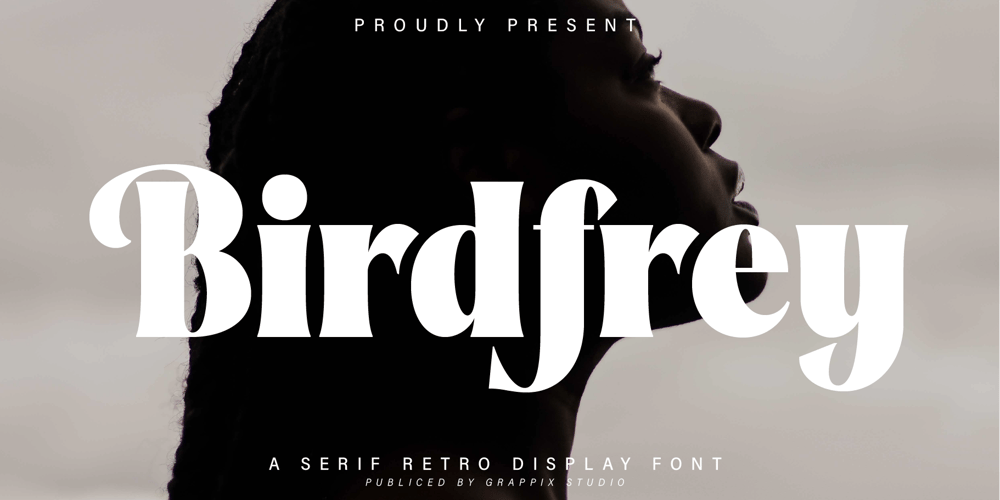
Birdfrey
Birdfrey font
Birdfrey Font Family was designed by Muhammad Zainudin and published by Grappix Studio. Birdfrey contains 1 styles and family package options. More information about this FontIntroducing our new modern serif retro bold display font “Birdfrey”Birdfrey is a modern serif font with a fresh and beautiful look. It has a modern and vintage look. It has extra glyphs to give more options for crafters in designing. Swirly extras will make it look classy and elegant.Birdfrey is perfect for any project, for modern or even retro vintage design. It’s covering a wide range of project types, from bold magazine imagery, to wedding invitations, to branding, poster design and so much more.Font Features:Uppercase and LowercaseNumeral and PunctuationCan be used in any software, like Adobe Photoshop, Illustrator, Silhouette Studio, even Microsoft Word, PowerPoint and others.Let me know if you have any questions at all :)Thank You! Grappix Studio